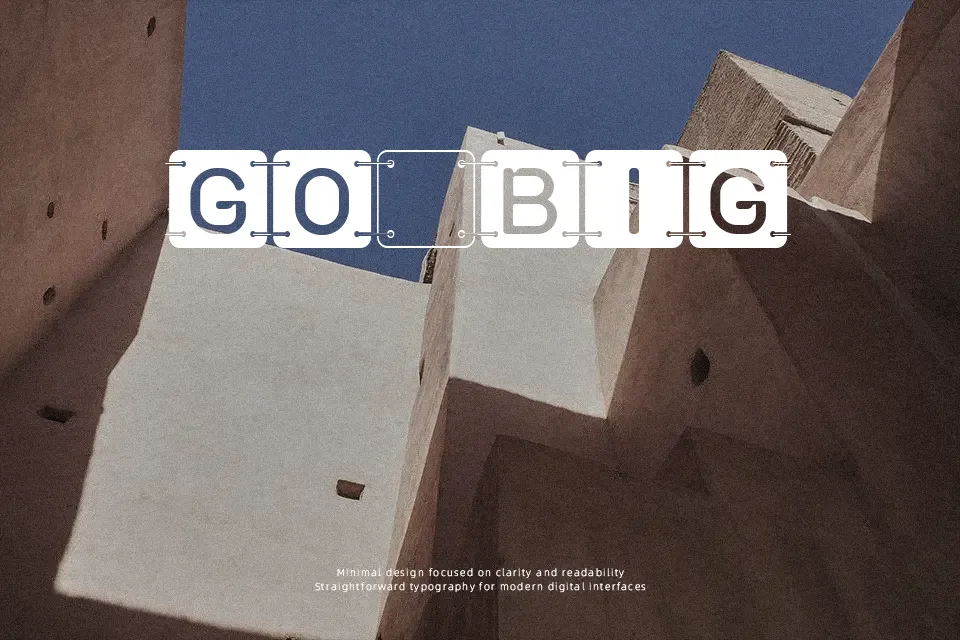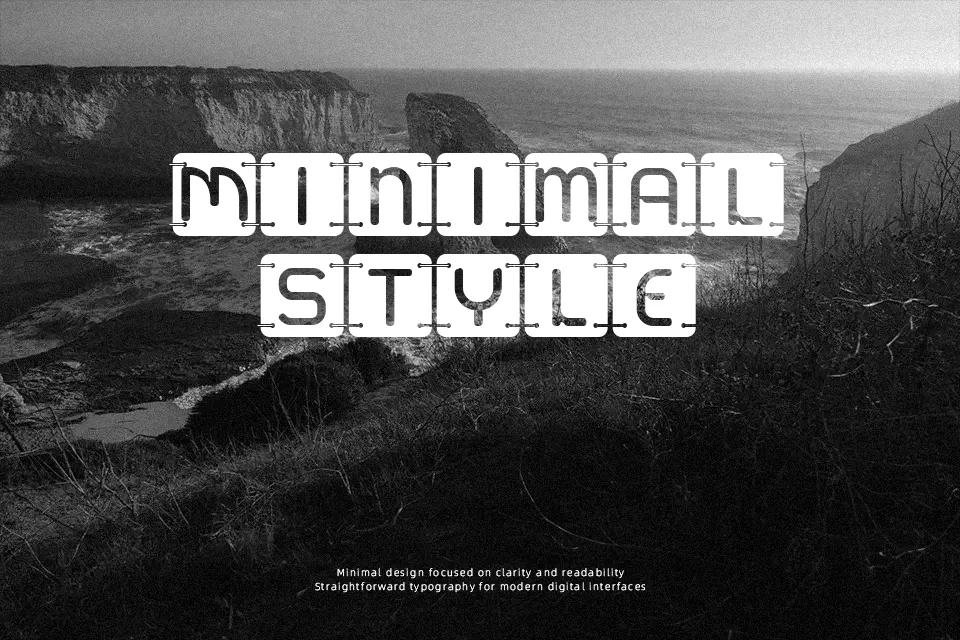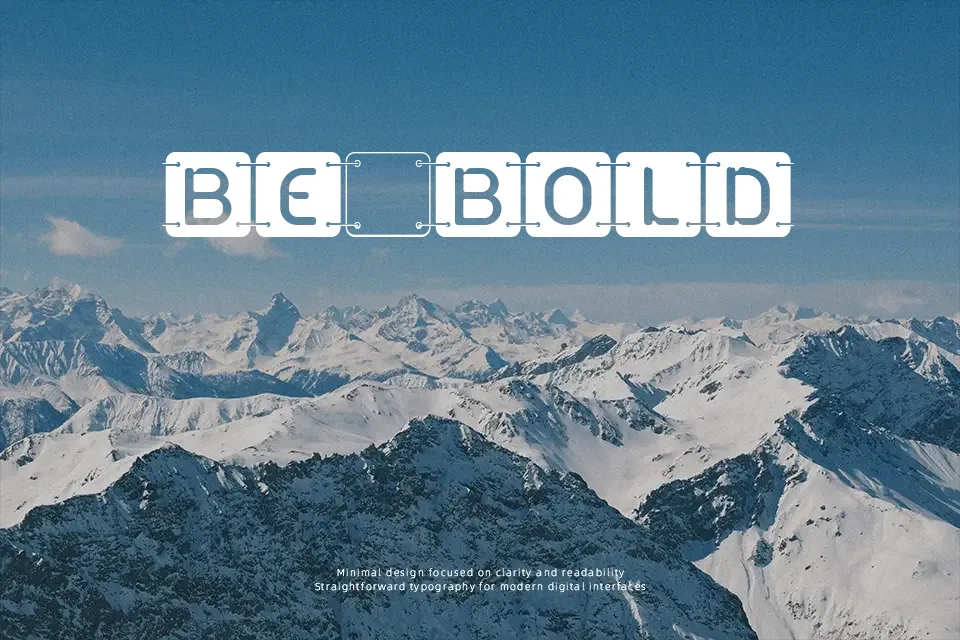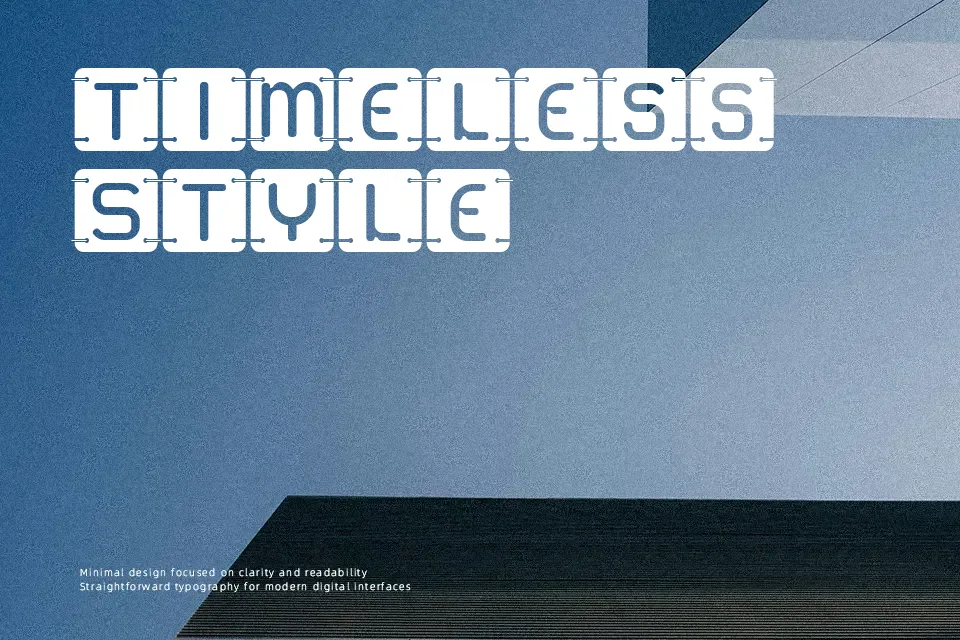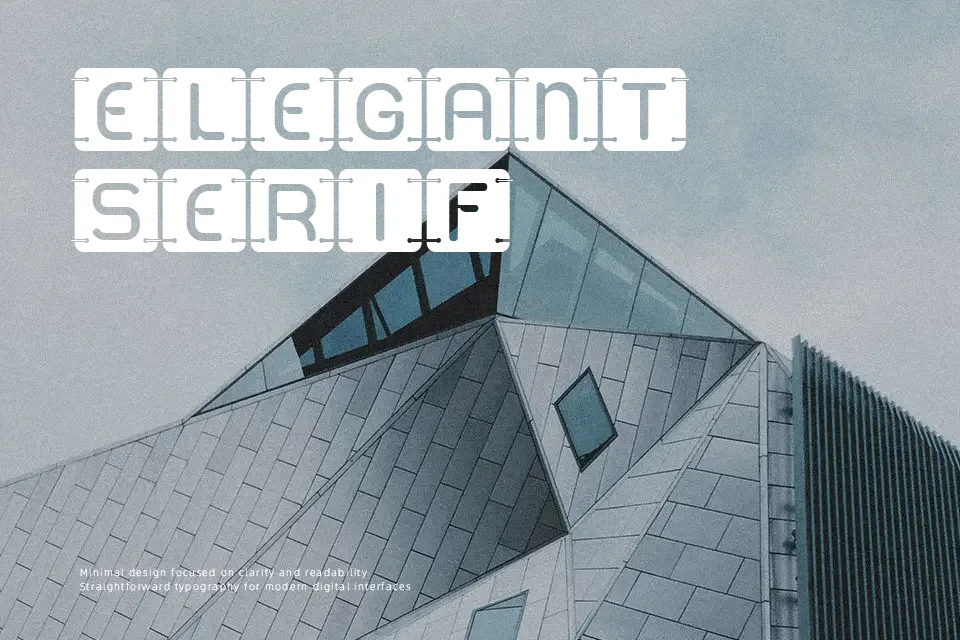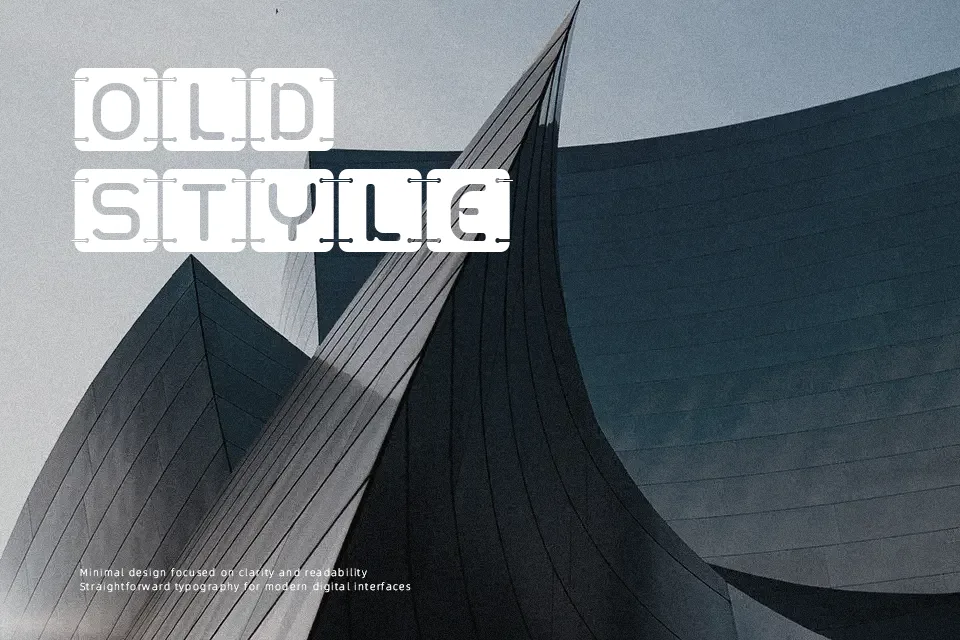
U2 Metalona Font
Designed by deFharo
U2 Metalona Font uses broad unicase letterforms shaped as joined metallic plates, creating a compact decorative rhythm across words. Its strokes appear sturdy and largely uniform, while the connections between characters give headlines a continuous, constructed look. The spacing is intentionally close, so individual letters read more clearly when set large and with enough surrounding space. It works well for short titles, graphic labels, and music-oriented artwork where the linked forms are part of the visual effect. In smaller text or extended copy, the decorative joins can make words slower to scan.
Best For: music poster headlines,album artwork,metal-inspired apparel graphics,short packaging labels
Perfect for headline, logo, and music, with a bold and decorative style.